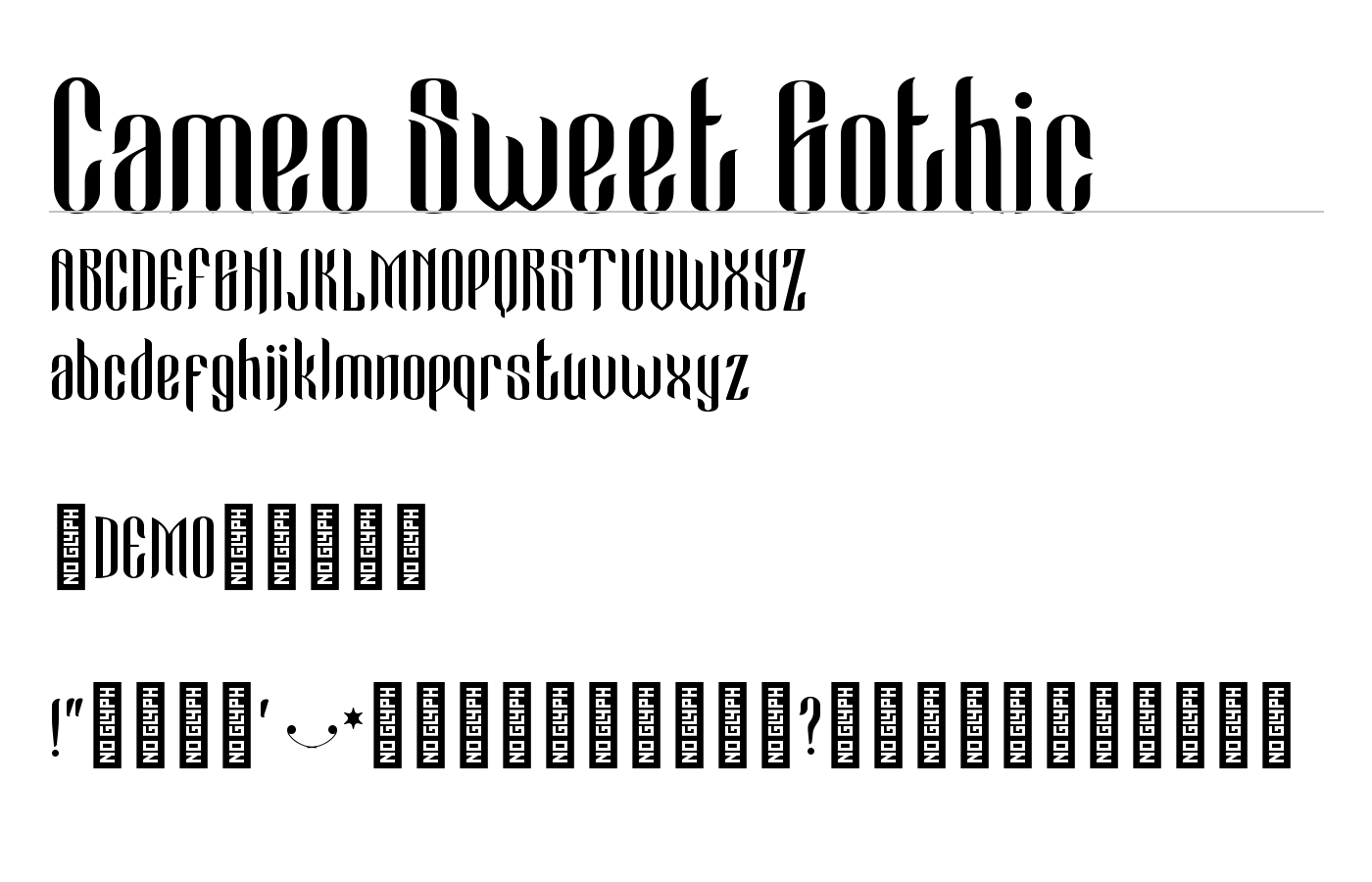
Cameo Sweet Gothic is a slender, tall serif font with a distinctive vintage elegance inspired by classic Gothic styles. It features high contrast between thick and thin strokes, narrow proportions, and delicate, sharp serifs that create a refined and stylish appearance perfect for upscale branding, packaging, and editorial headlines where a touch of sophistication and timeless charm is desired. Its unique letterforms make it ideal for making a bold yet elegant statement in any design.
Cameo Sweet Gothic Font
About Cameo Sweet Gothic Font
| Font family | Cameo Sweet Gothic Font |
| Designer | Kadek Adi Mahardika |